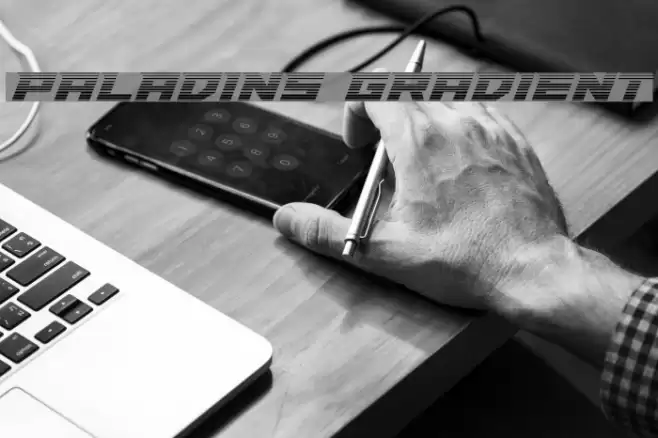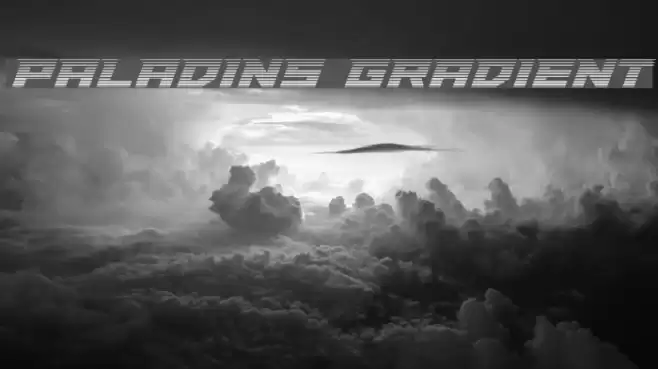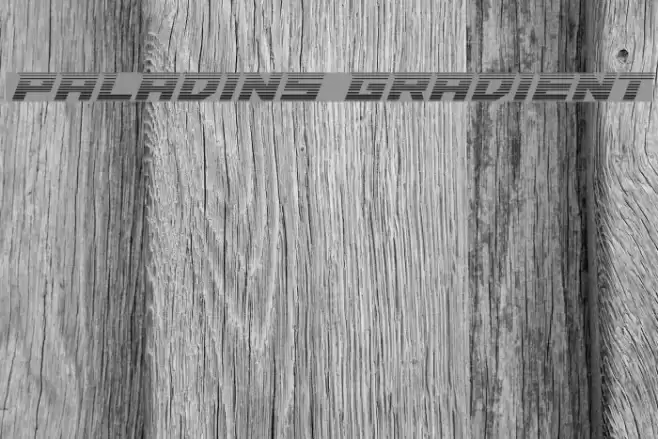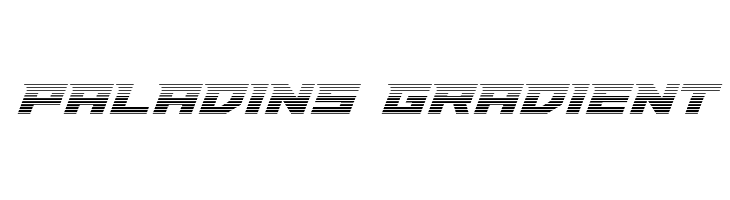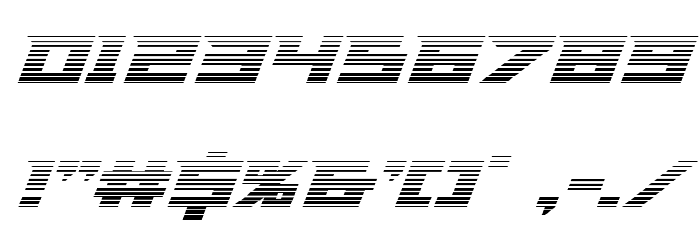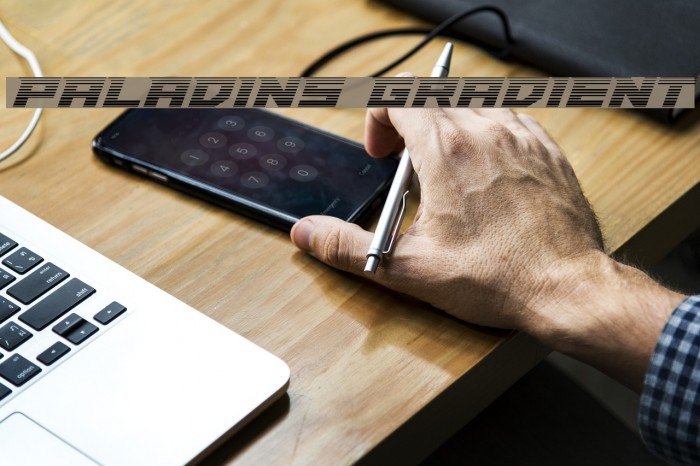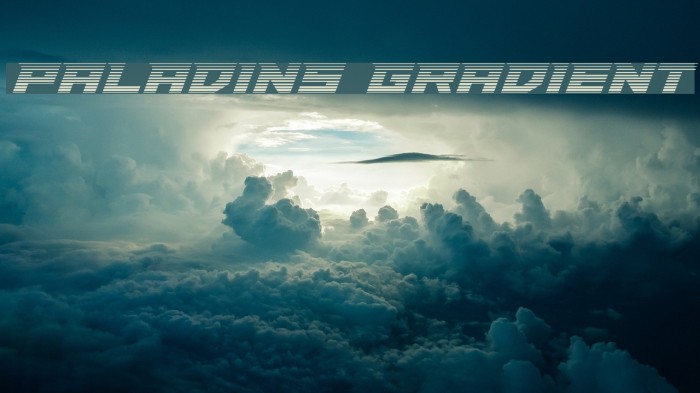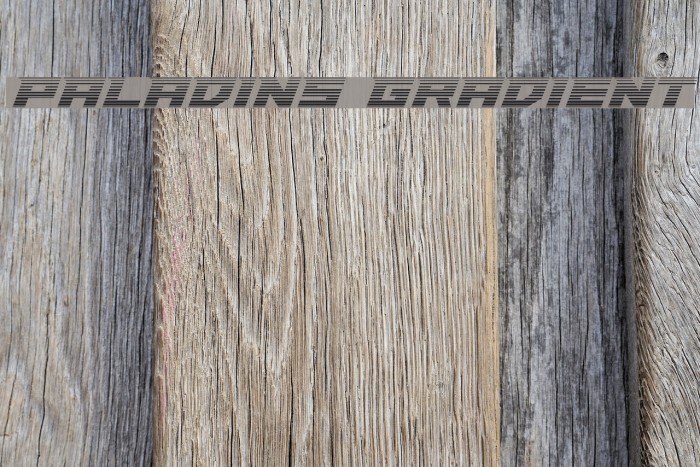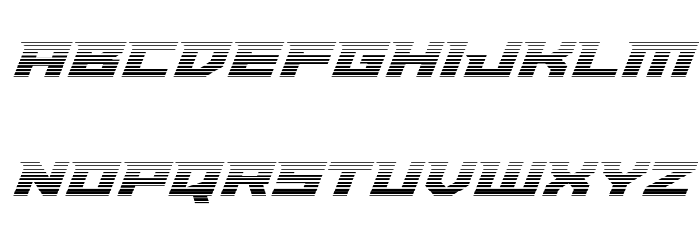
Paladins Gradient Font
Paladins Gradient Description
This font features a bold, futuristic design with a distinct horizontal line pattern running through each character, creating a gradient effect. The uppercase and lowercase letters maintain a consistent style, with sharp angles and a geometric structure that gives a sense of movement and speed. The numbers and special characters follow the same design principles, ensuring uniformity across all glyphs. The font's unique style makes it stand out, ideal for projects that require a modern and dynamic look.
A bold, futuristic font with a horizontal line gradient effect from Uncategorized fonts.
- Proposed Projects: Ideal for video game titles, tech branding, futuristic posters, and digital media.